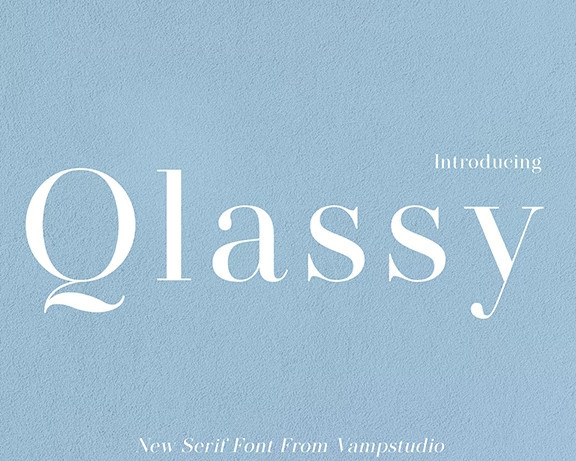
Qlassy Font
Qlassy Serif Font is a unique serif font, elegant and modern font.this font is intentionally made with unique. This style of hand display makes it perfect for use in all your design projects whether it’s logo, label, packaging design, blog title, poster, wedding designs, social media posts, Instagram design, etc.